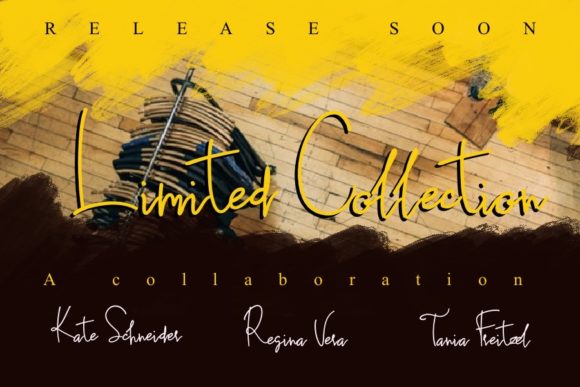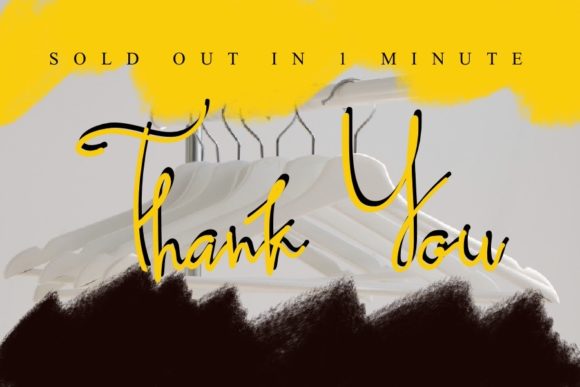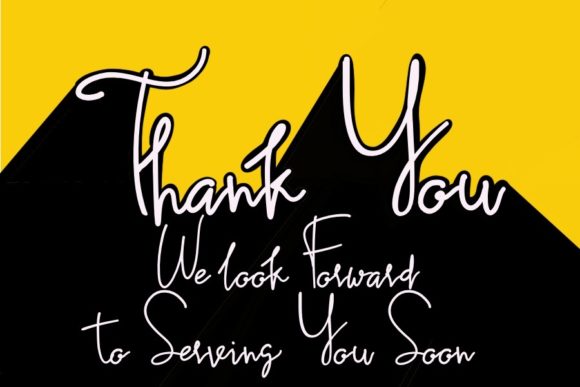
Introduction to Sienta Kurt Font
Sienta Kurt is a delicate, elegant and flowing handwritten font.
It has beautiful and well balanced characters and as a result, it matches a wide pool of designs Fall in love with its playful style and use it to create beautiful stationary art, eye-catching social media posts, and much more.
Key Features of Sienta Kurt Font
Why Choose Sienta Kurt Font?
Sienta Kurt Font offers exceptional quality and versatility, making it a valuable addition to your design toolkit. Whether you’re creating for personal projects or commercial use, Sienta Kurt Font delivers professional results.